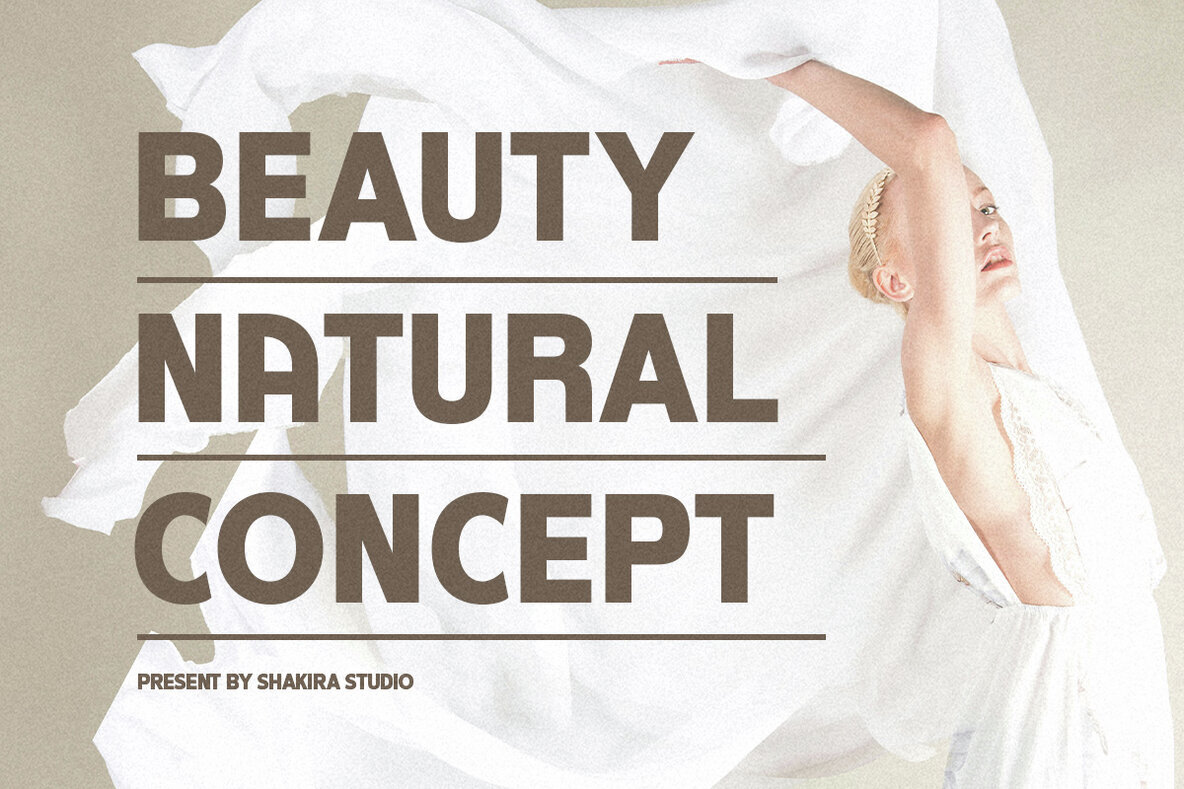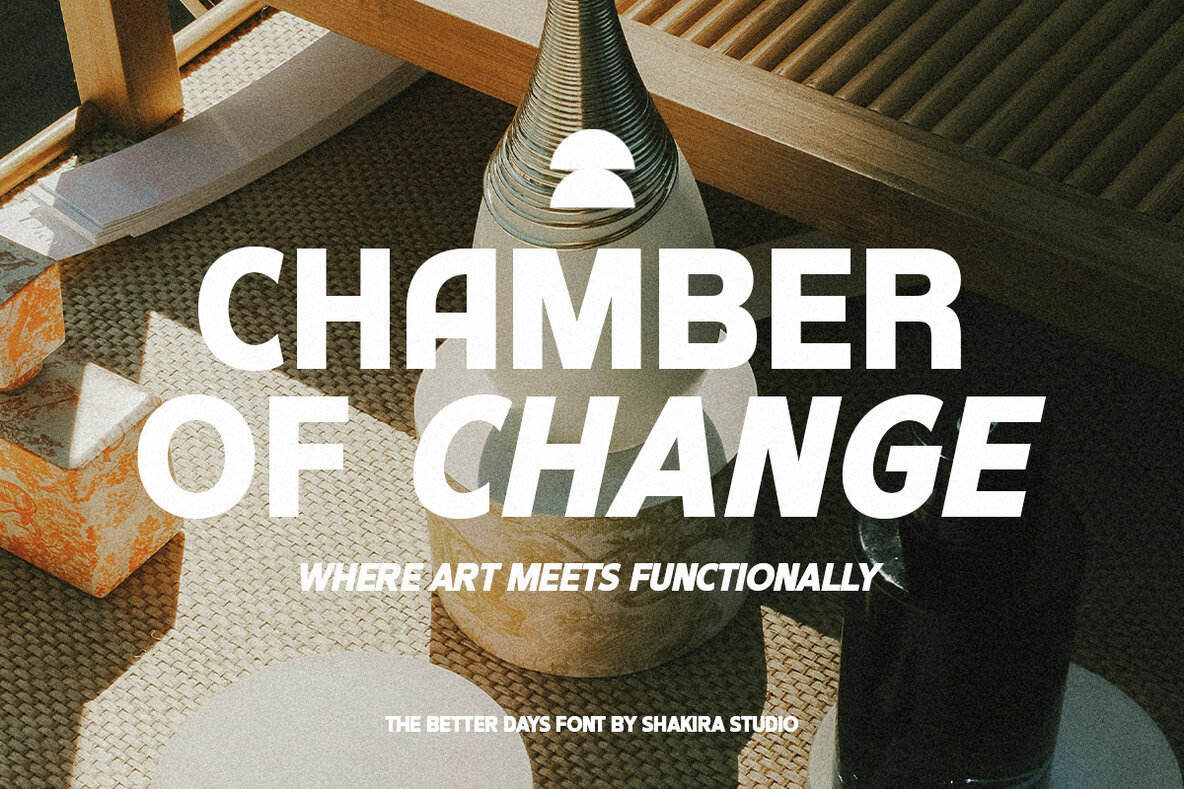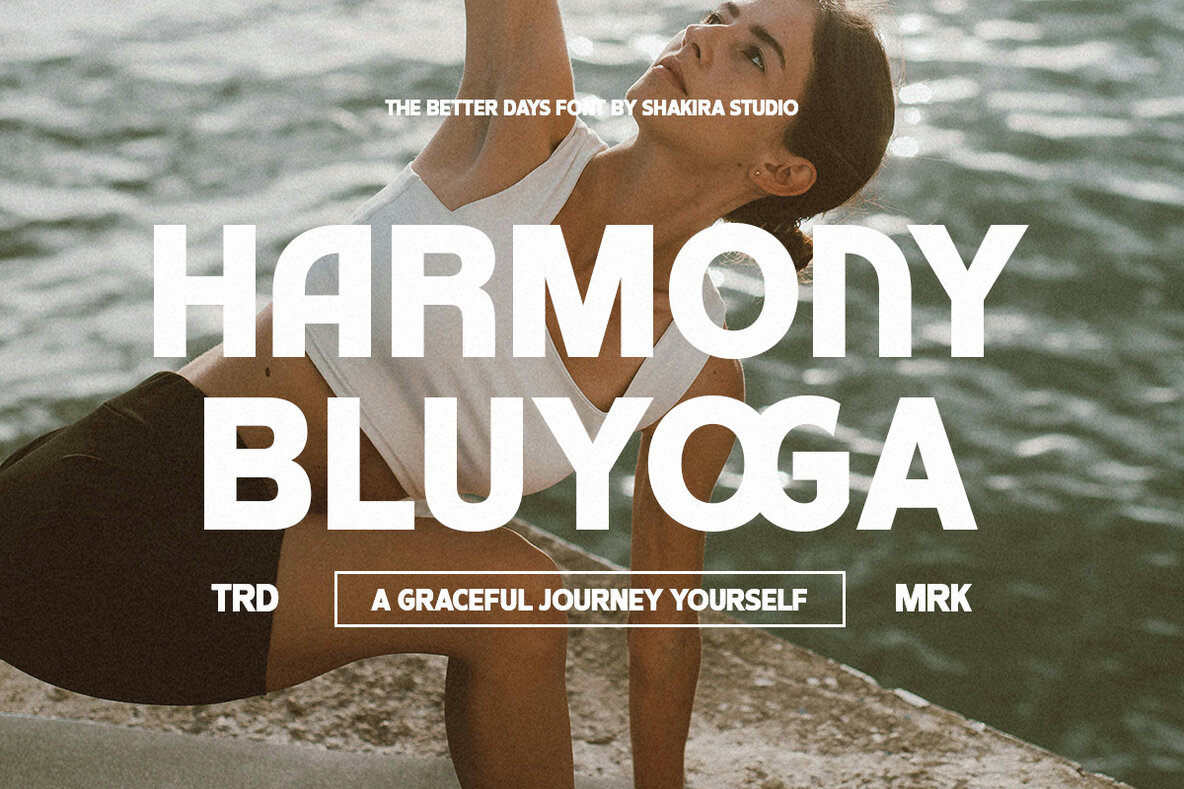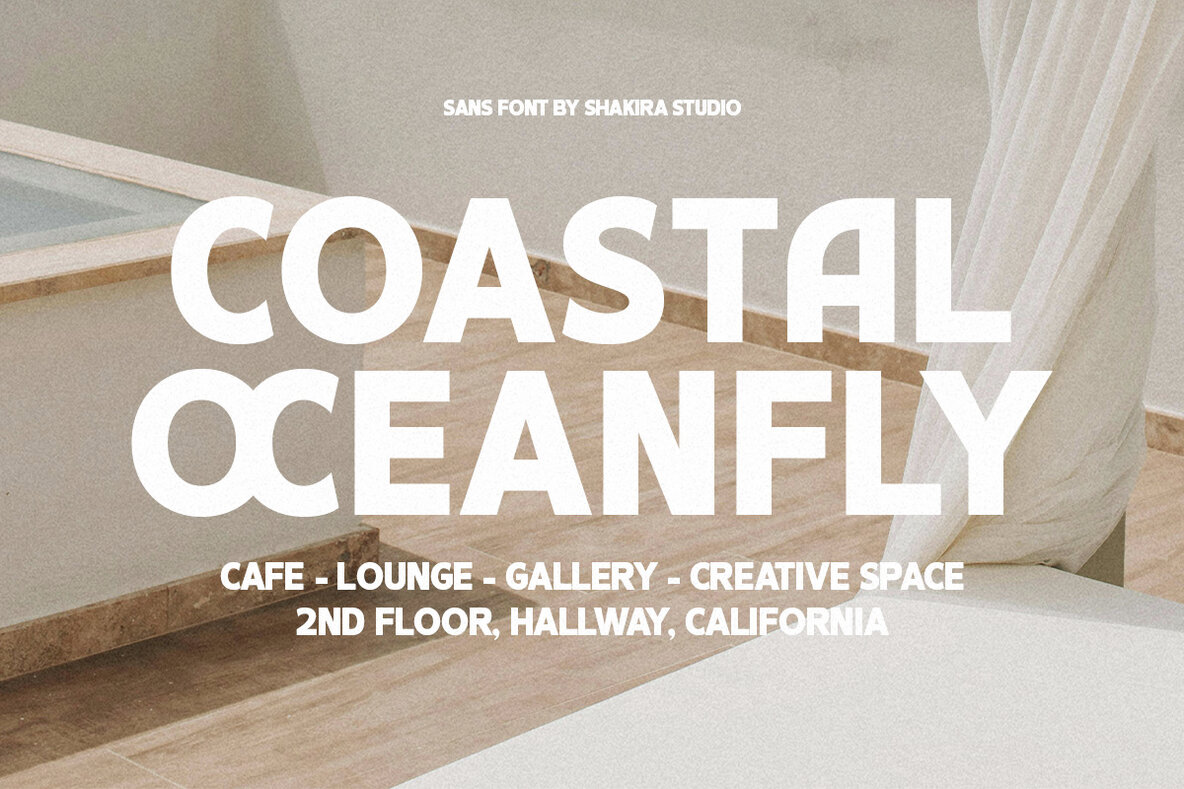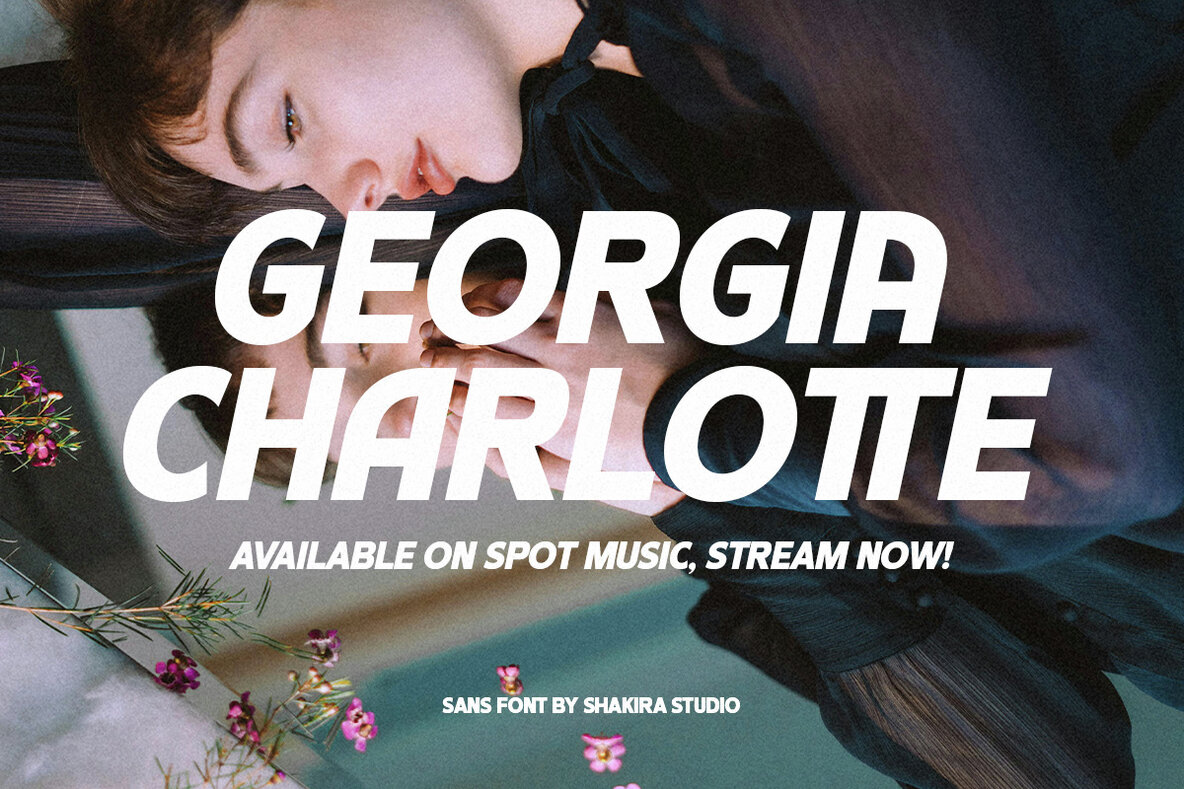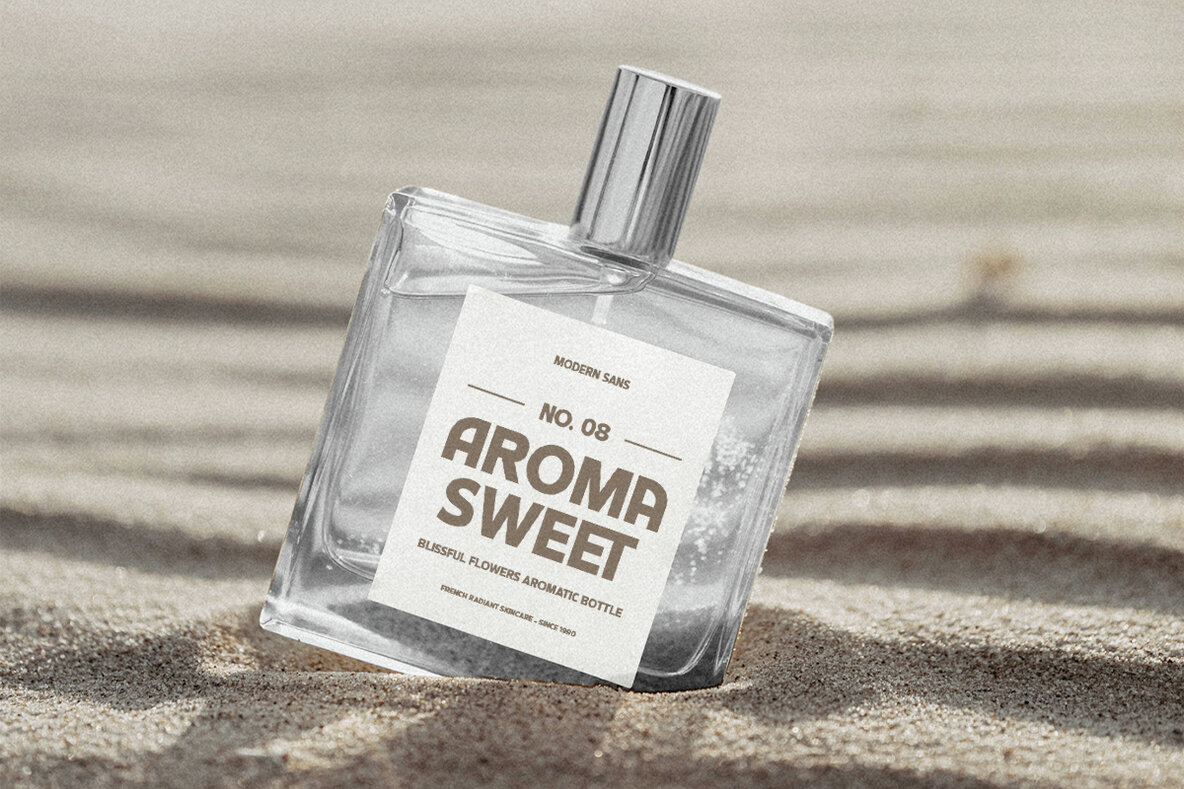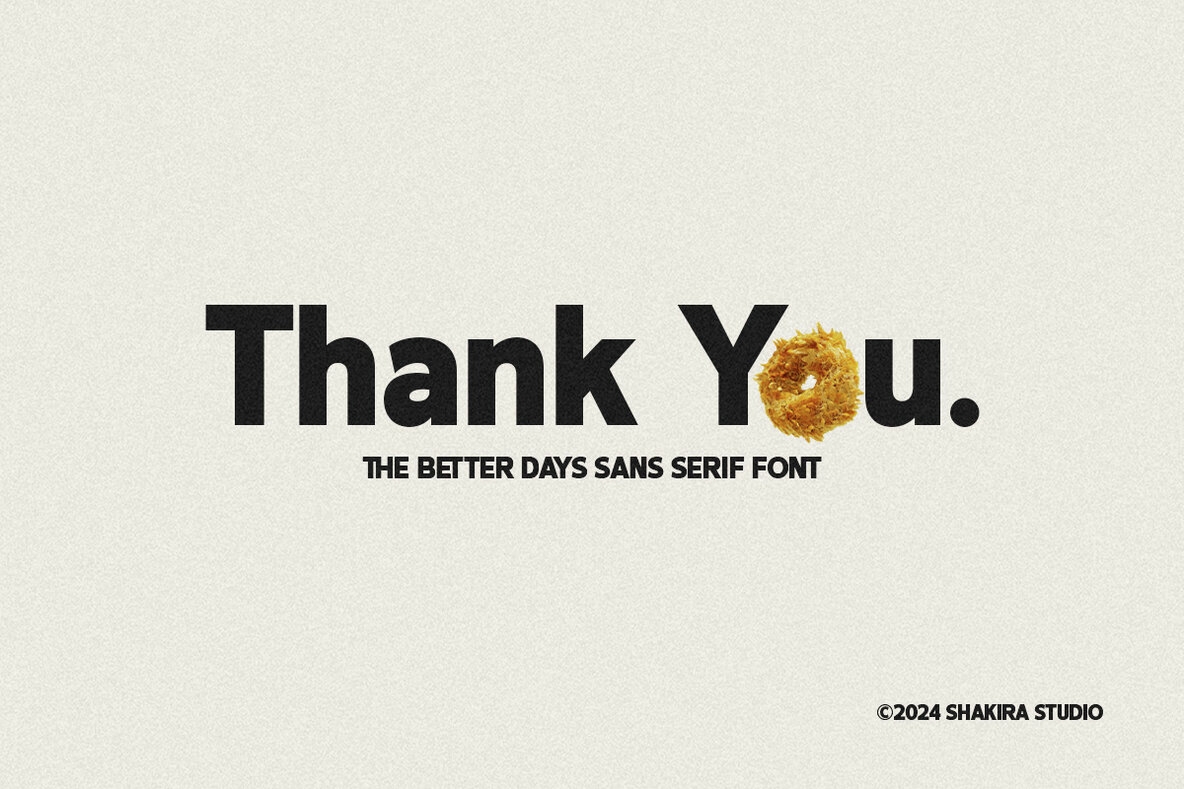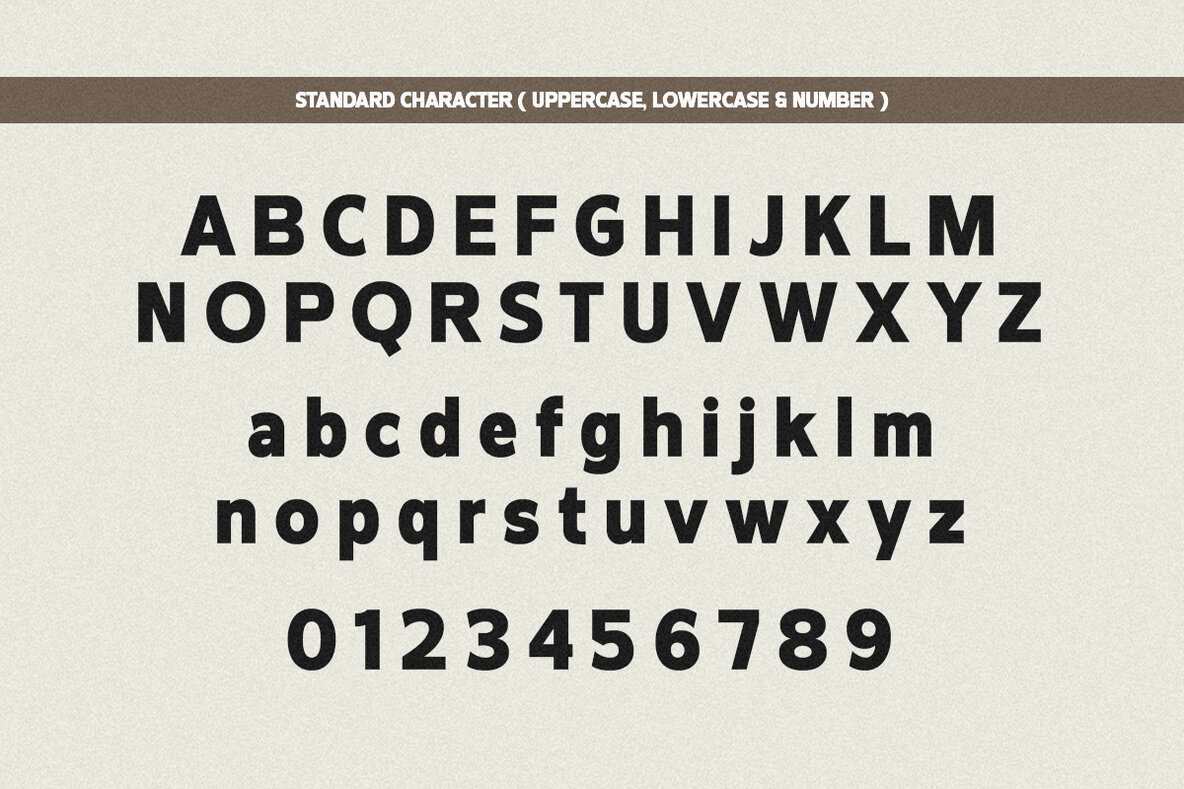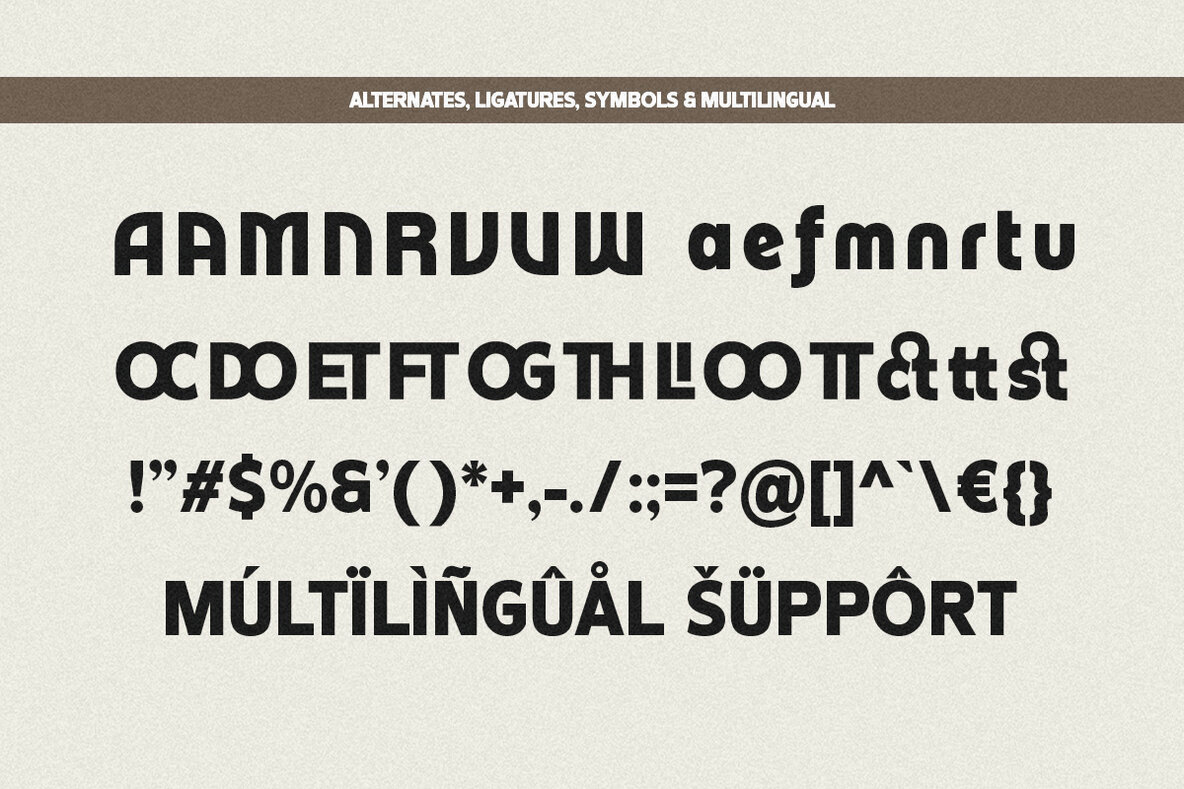
The Better Days Font
The Better Days Regular
The Better Days Italic
The Better Days is a modern Sans Serif font that exemplifies simplicity and clarity. Its clean lines and minimalist style make it perfect for contemporary branding and digital projects. Available in both regular and italic versions, The Better Days is ideal for headlines, logos, and body text.
This versatile typeface supports multiple languages, including Afrikaans, Albanian, Catalan, and more. It features Opentype functionalities such as ligatures and alternates. Compatible with major design software like Adobe Illustrator, Photoshop, InDesign, and even Microsoft Word, The Better Days is PUA Encoded, ensuring full accessibility without additional software. Enhance your design projects with the modern elegance and versatility of The Better Days.